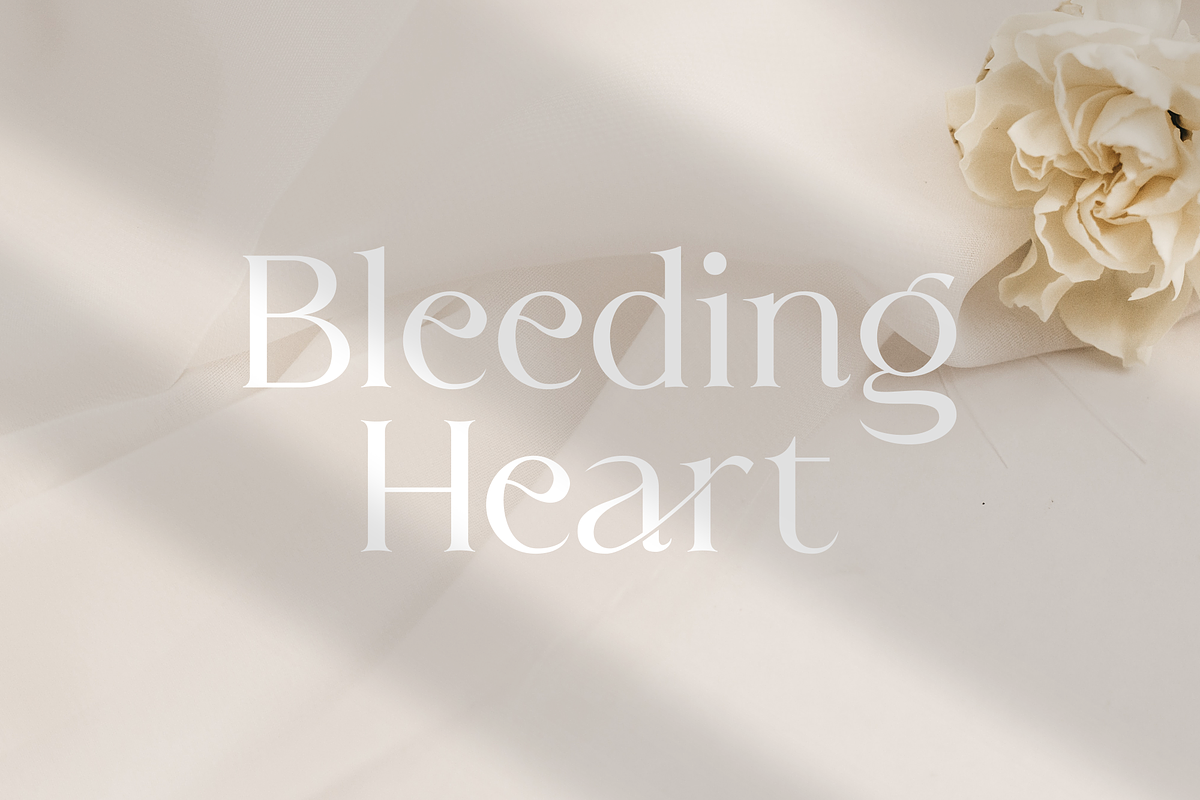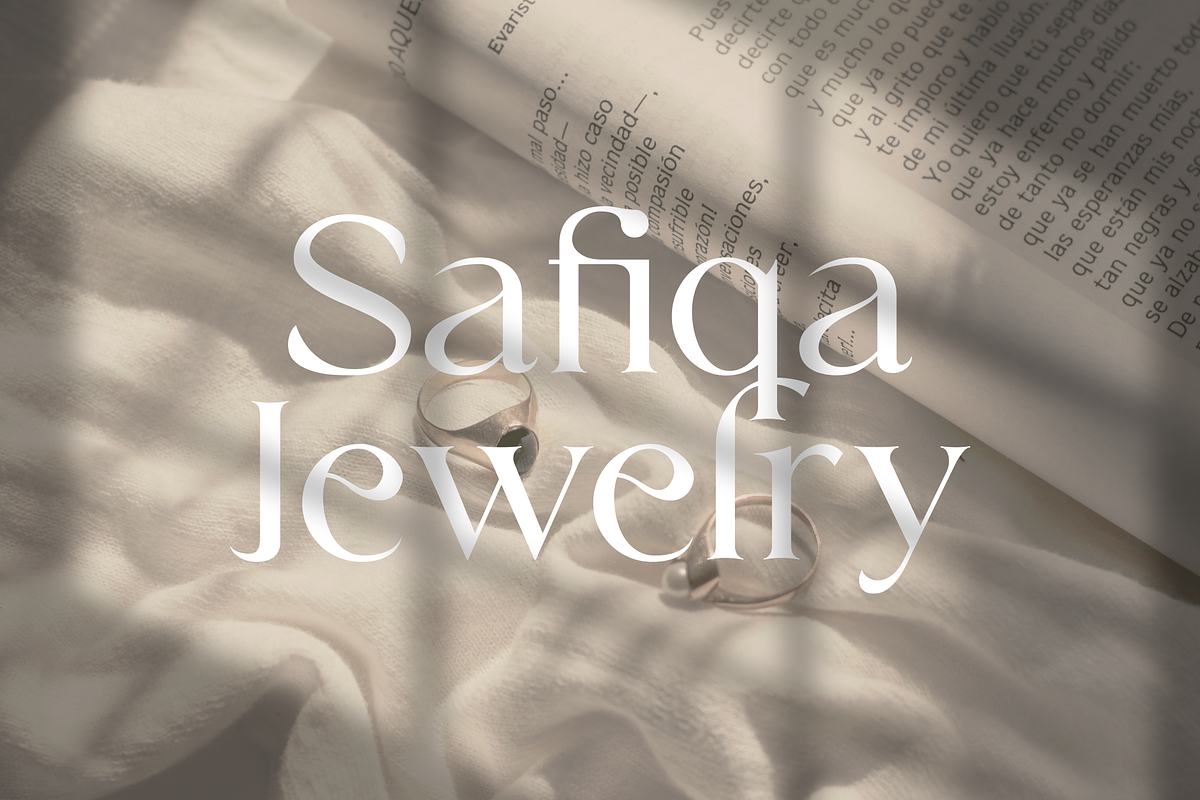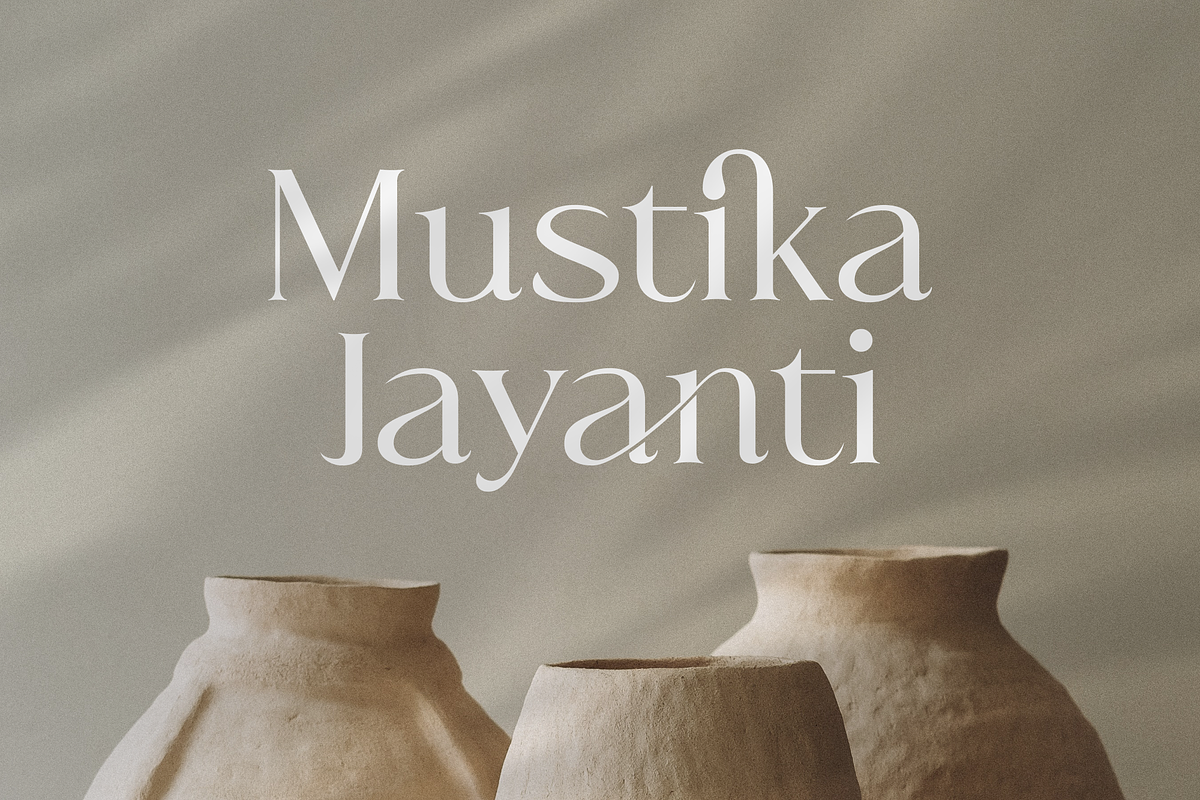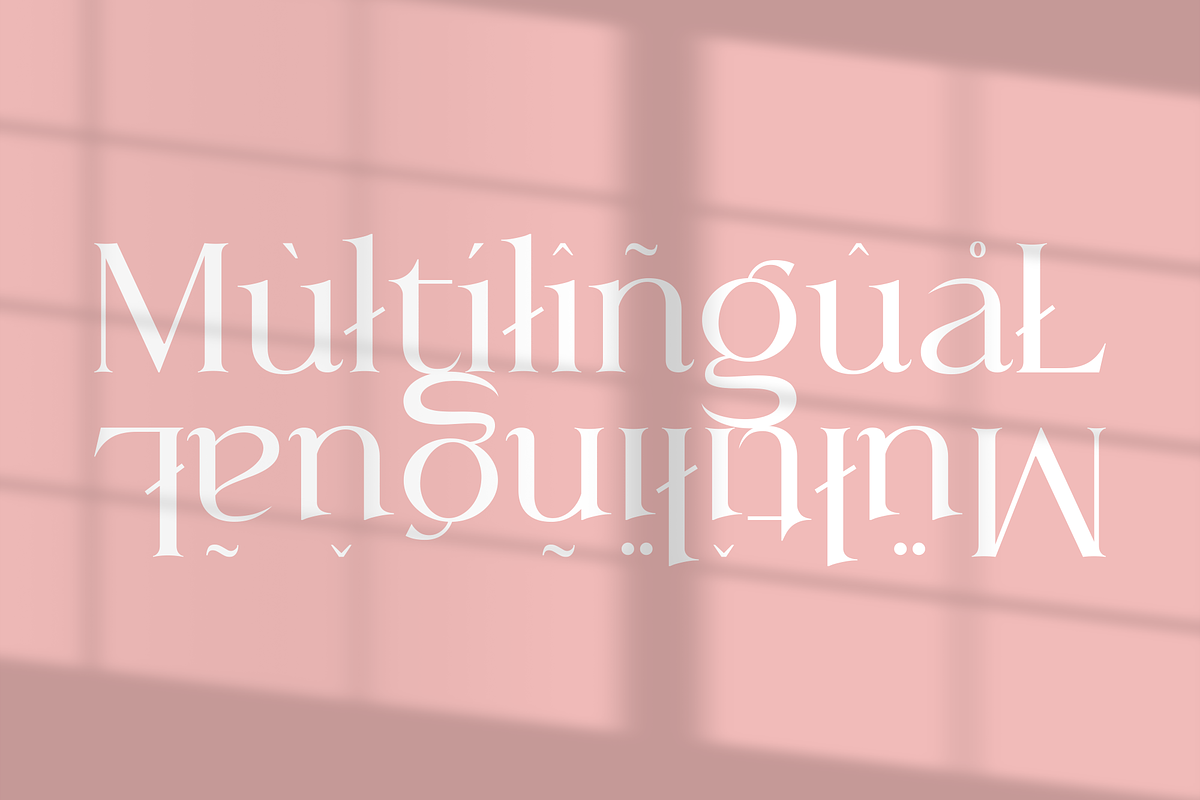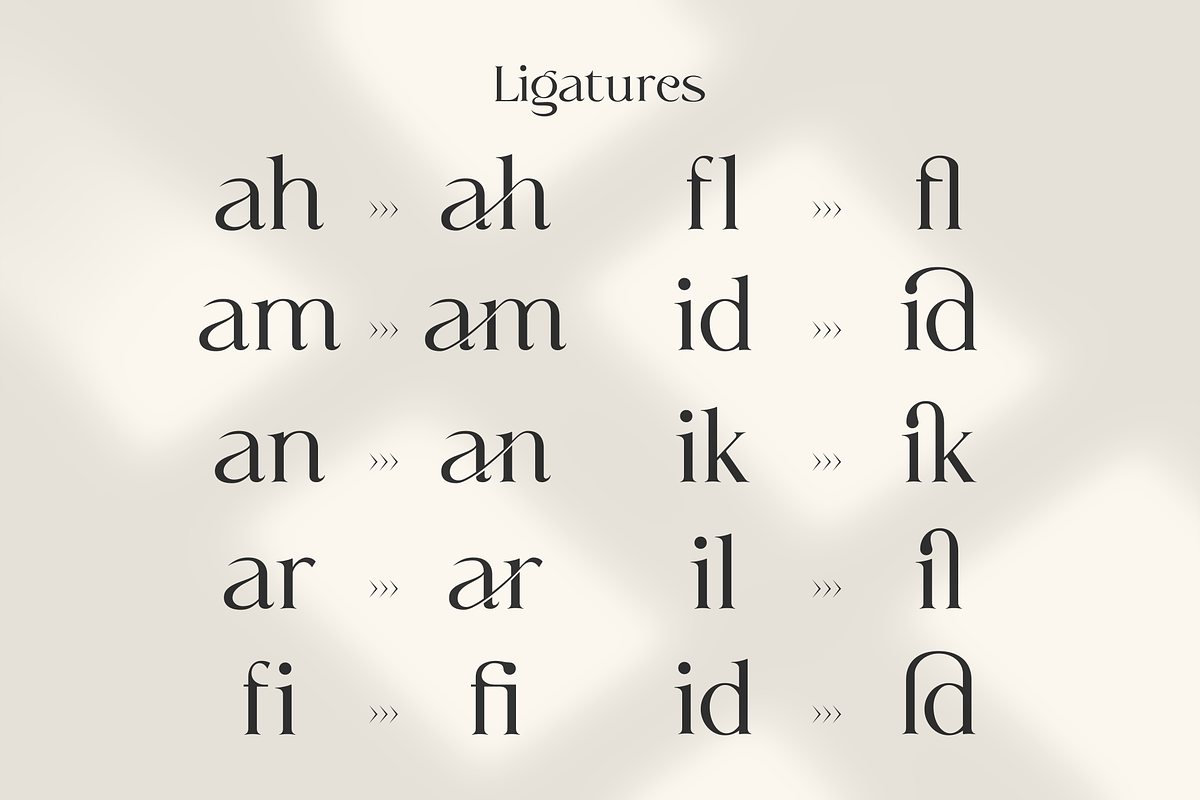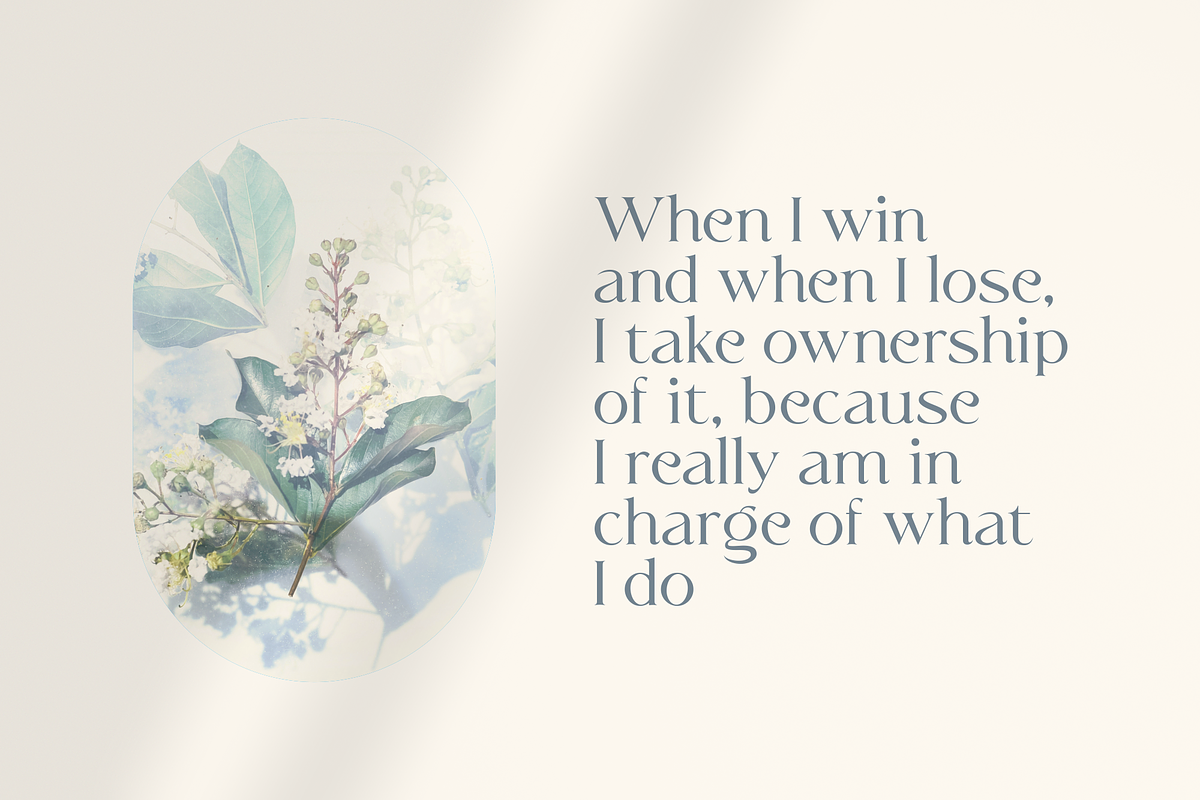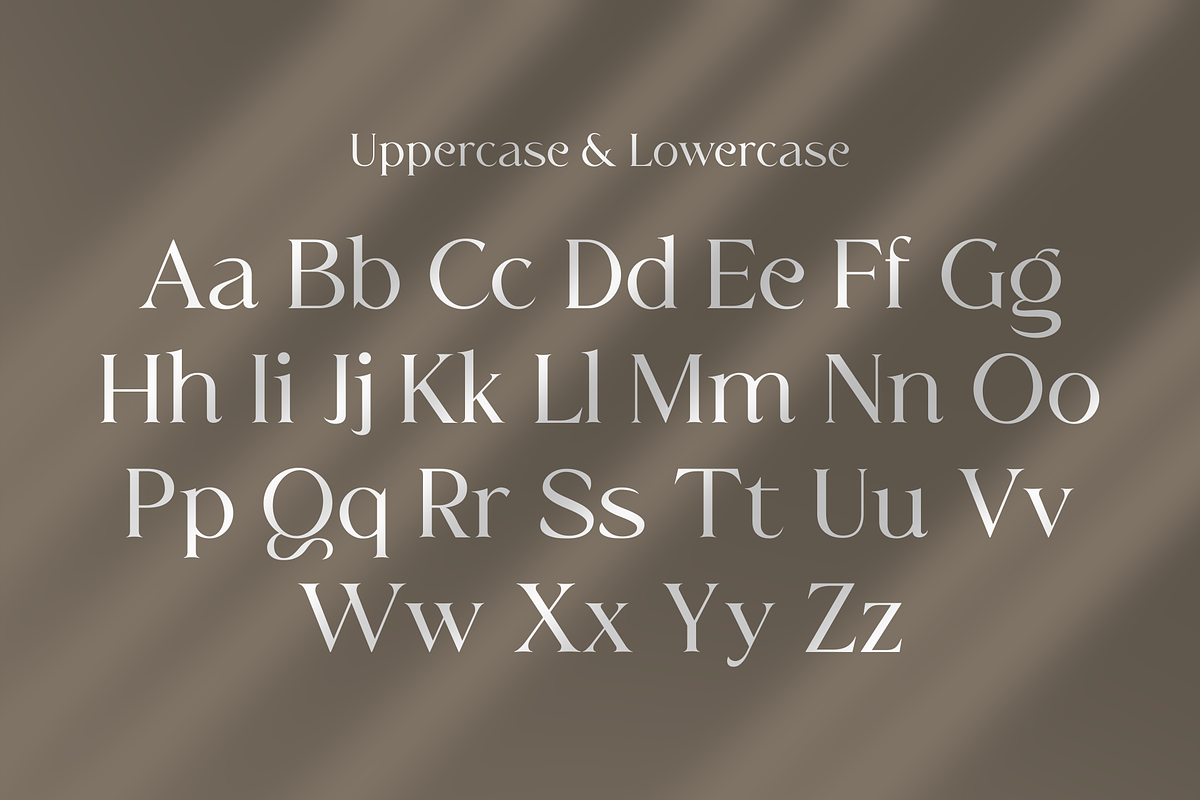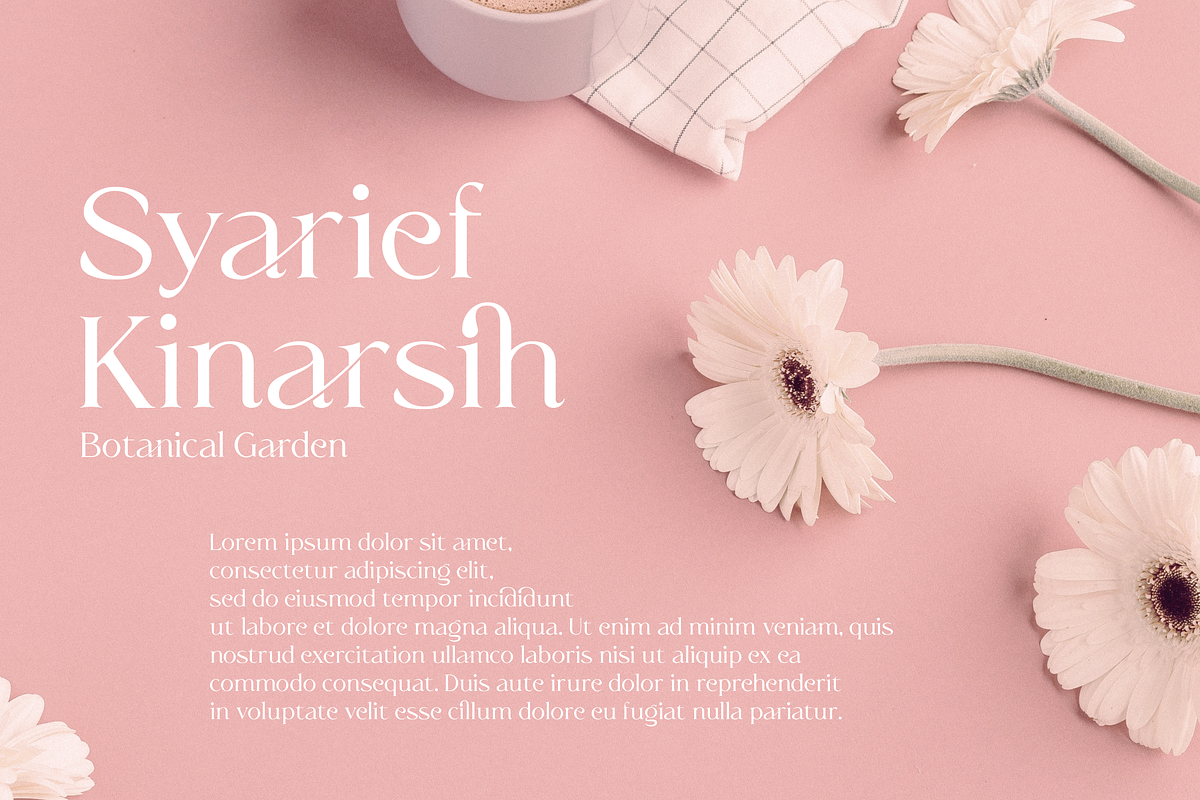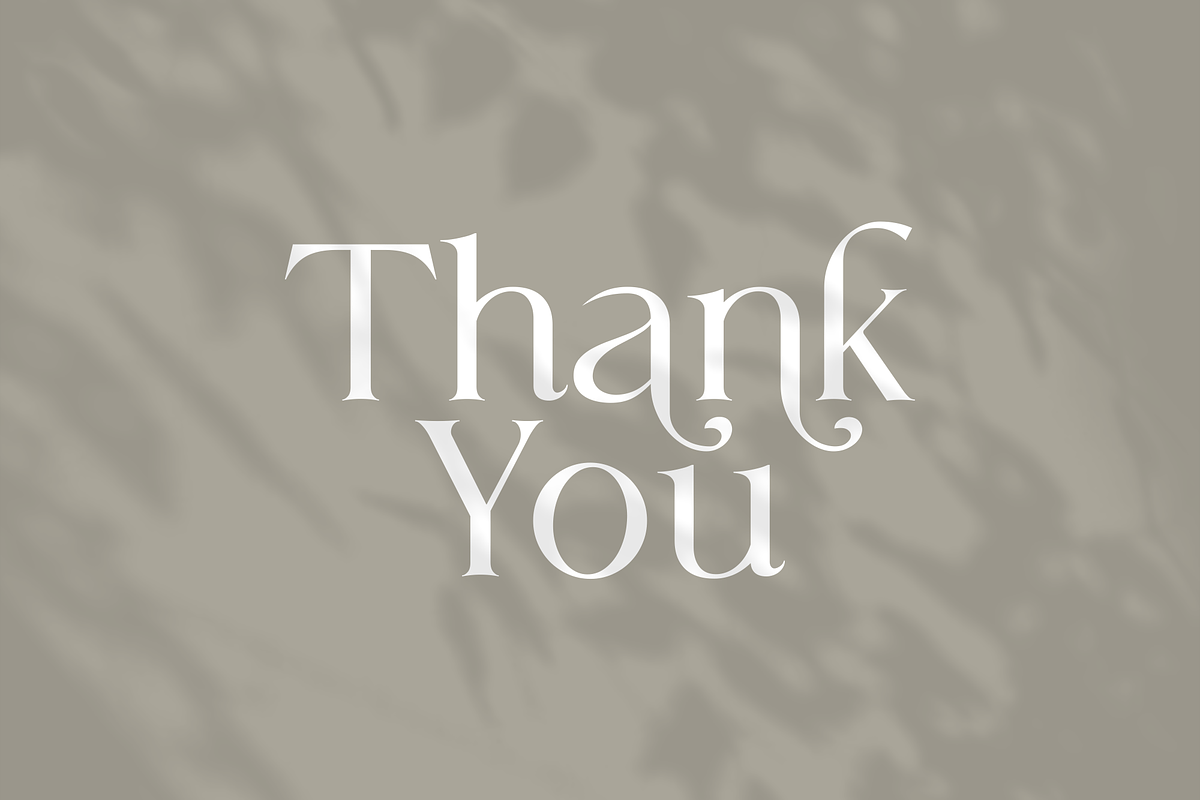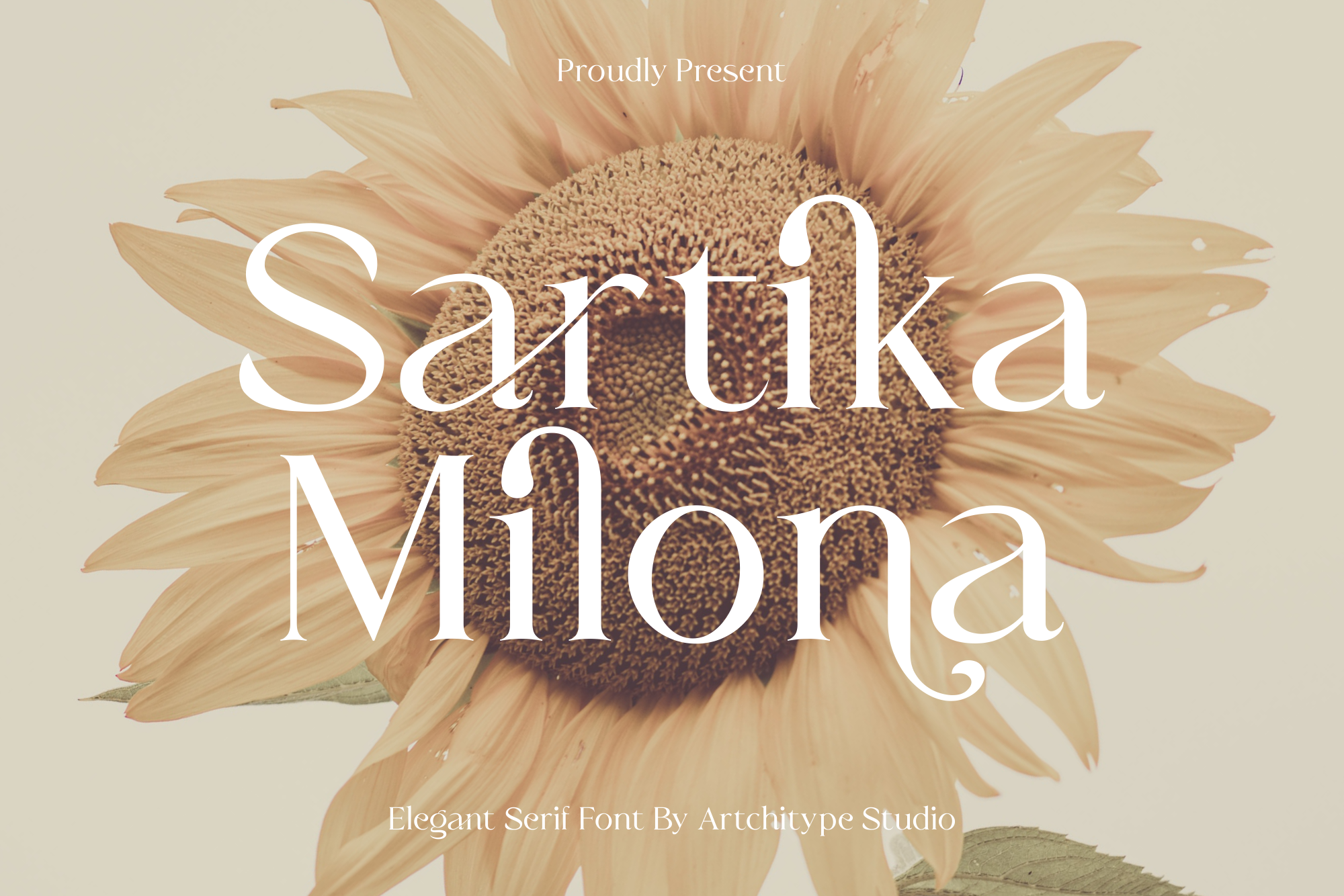
Sartika Milona - Elegant Serif Font
Sartika Milona is classy display serif font with 280+ characters. Includes uppercase, lowercase characters, multilingual, alternates and most common other characters.
Sartika Milona is perfect for logos, social media posts, product packaging, product designs, and other projects.